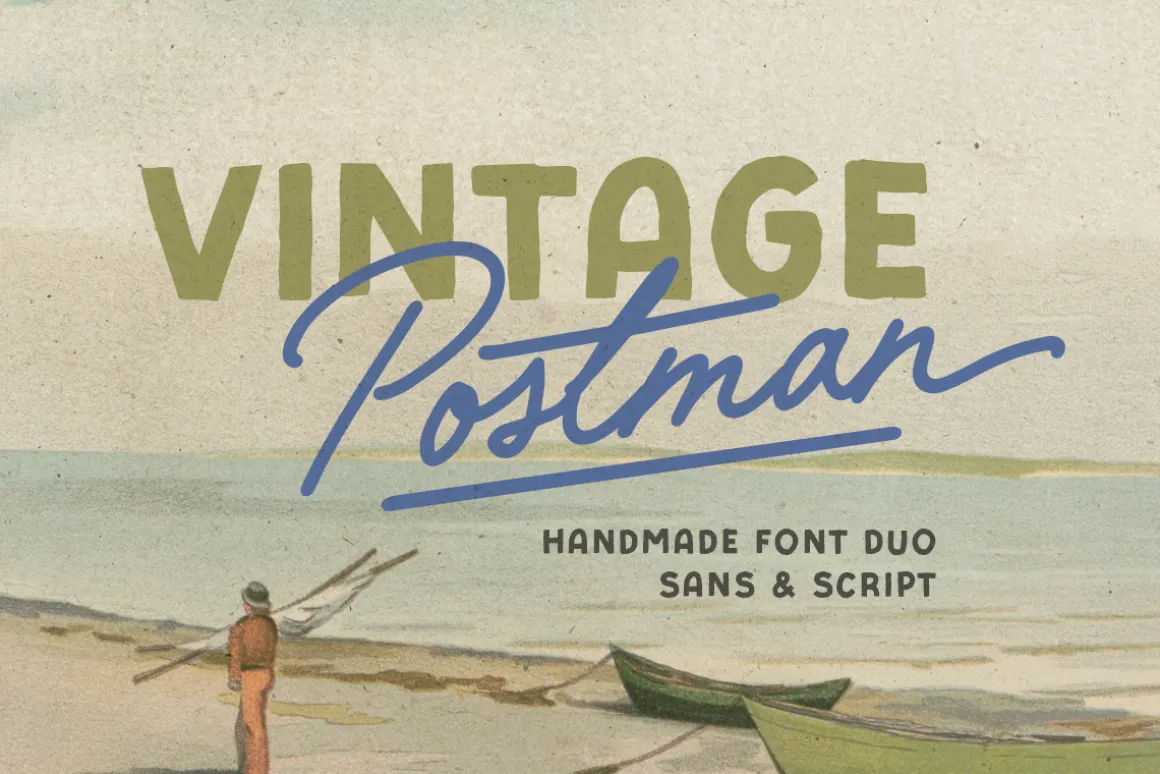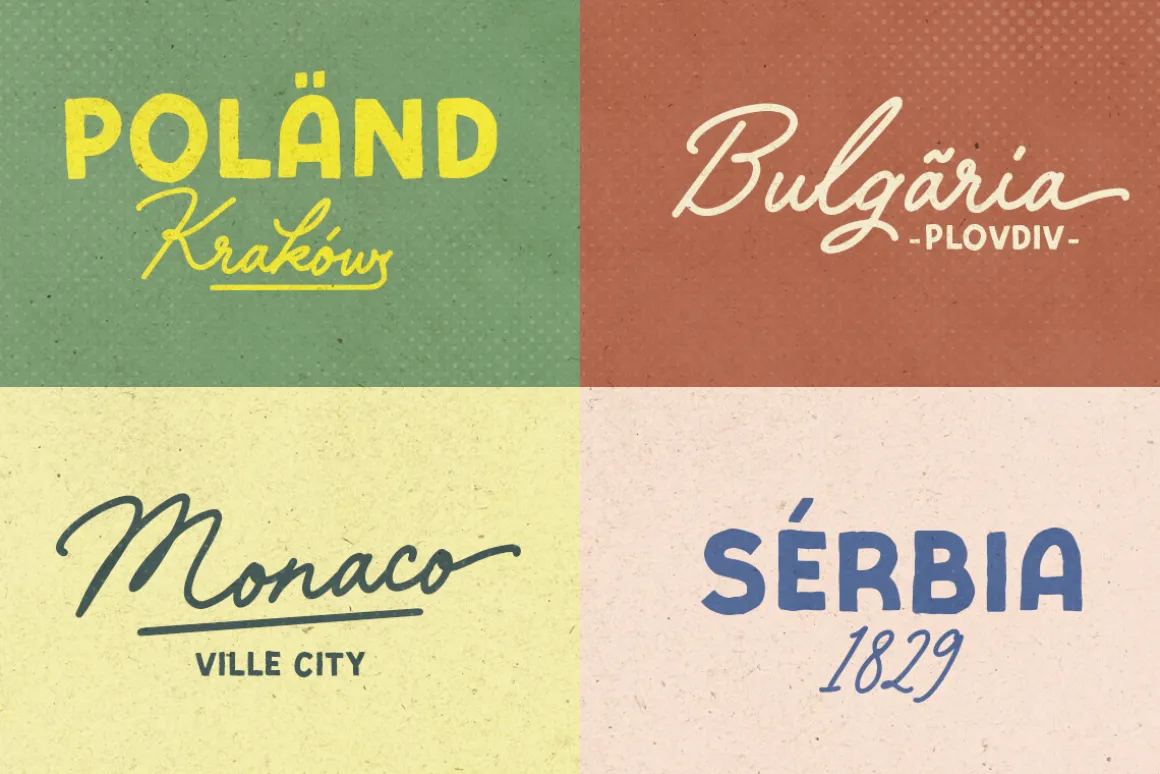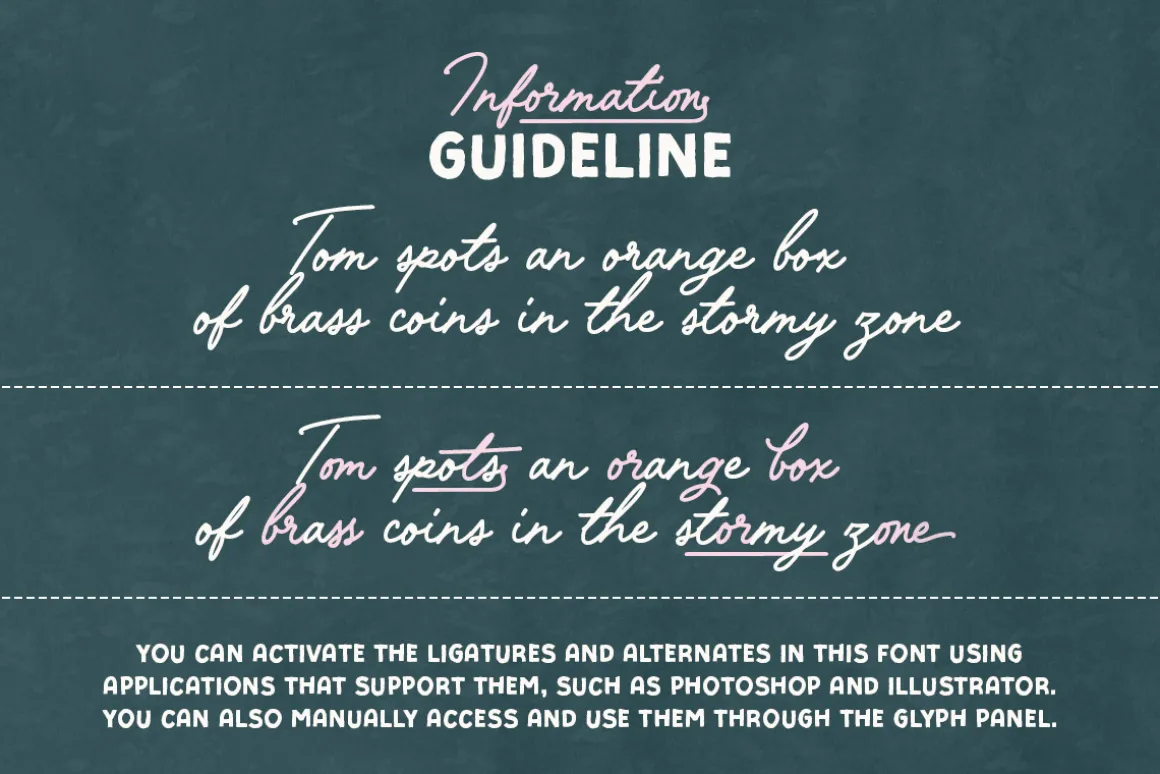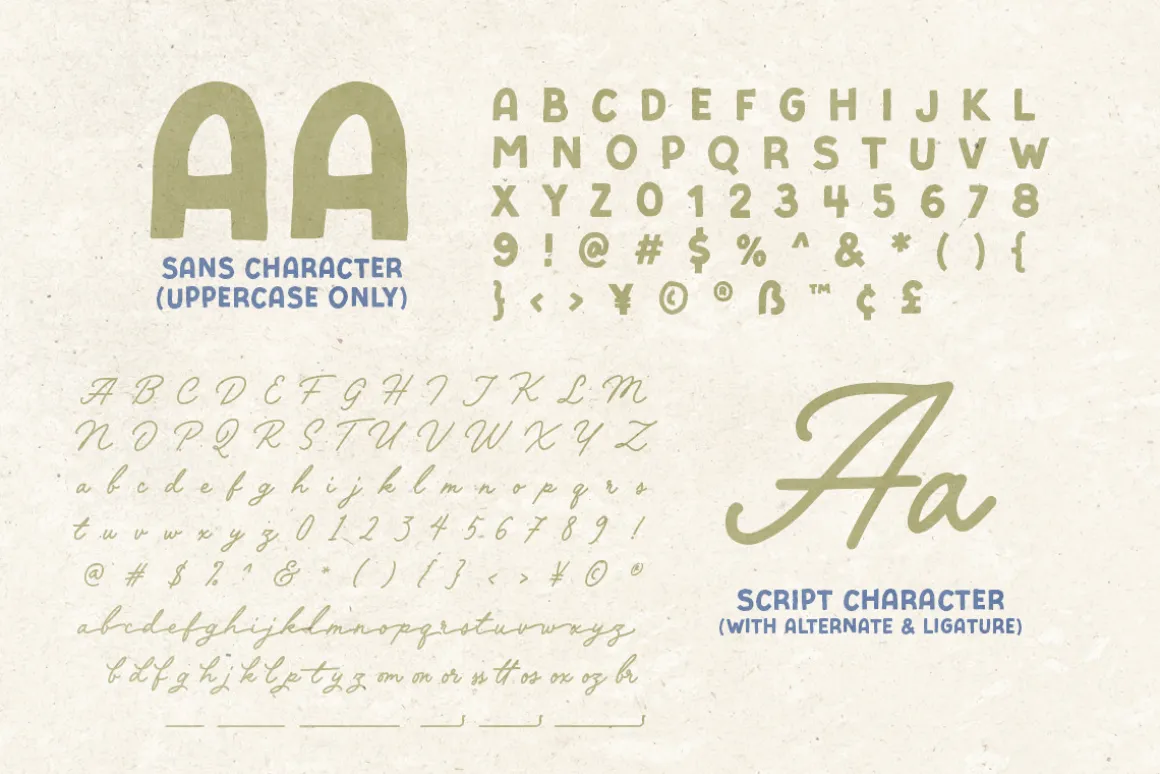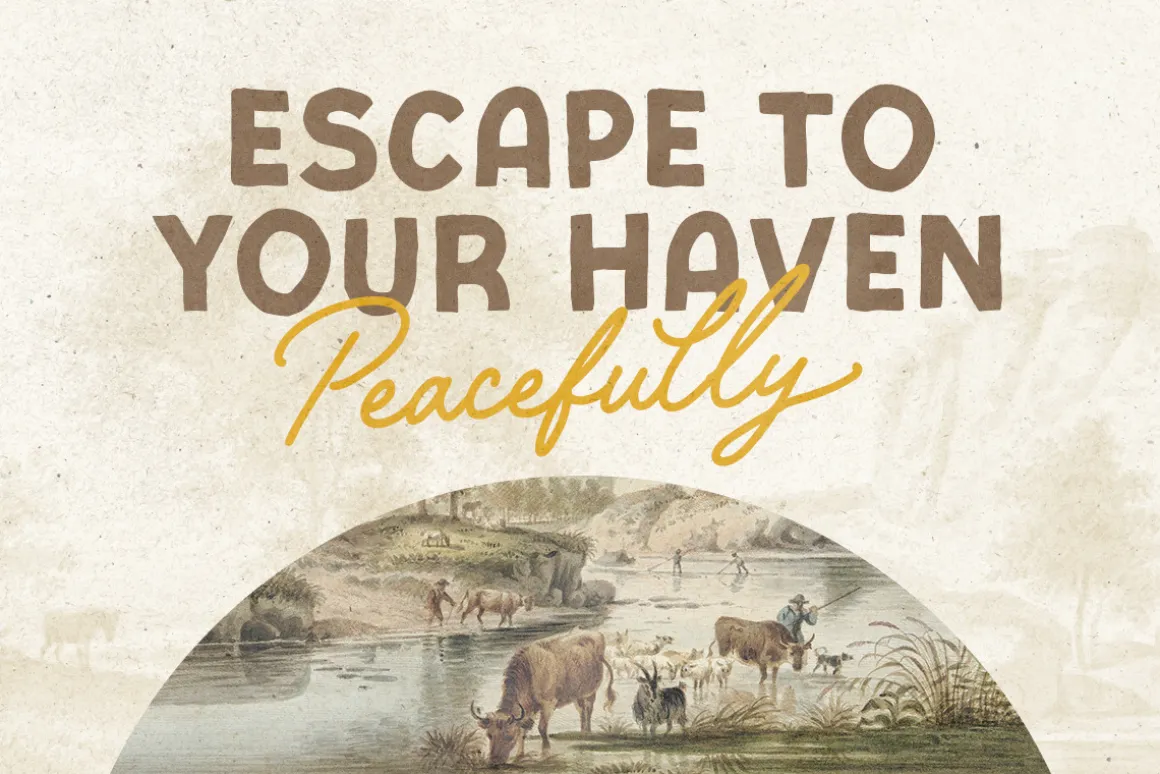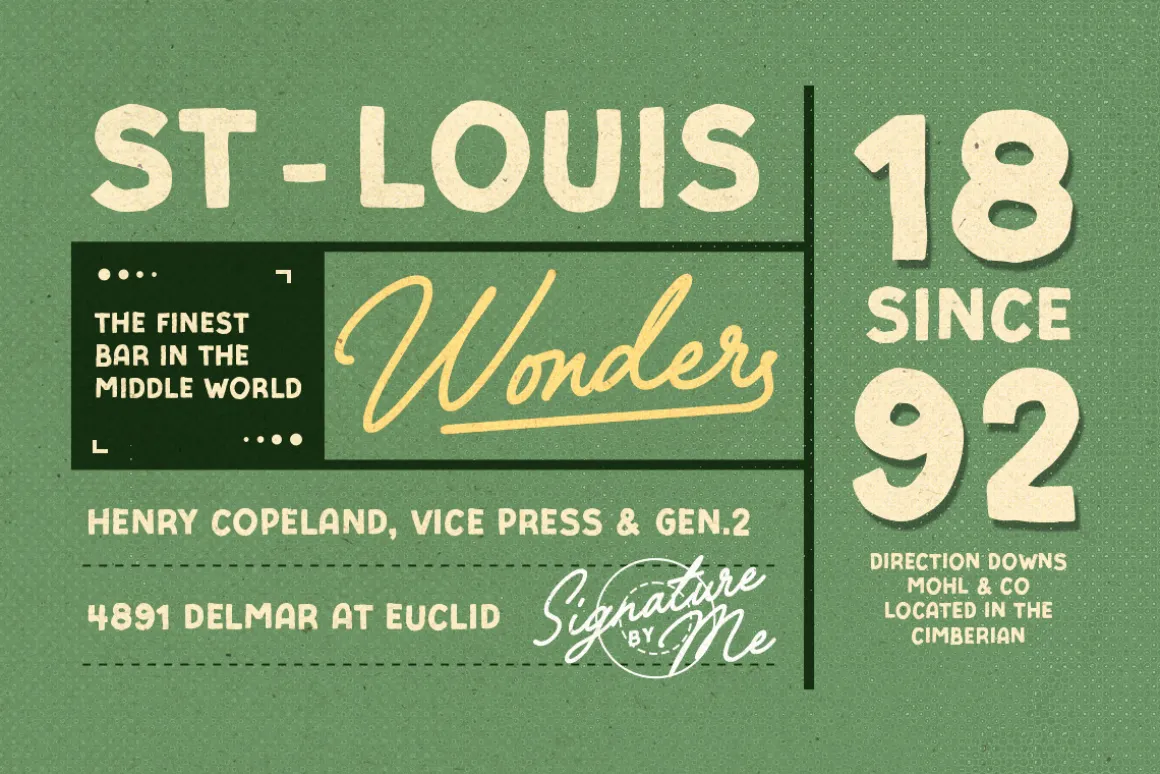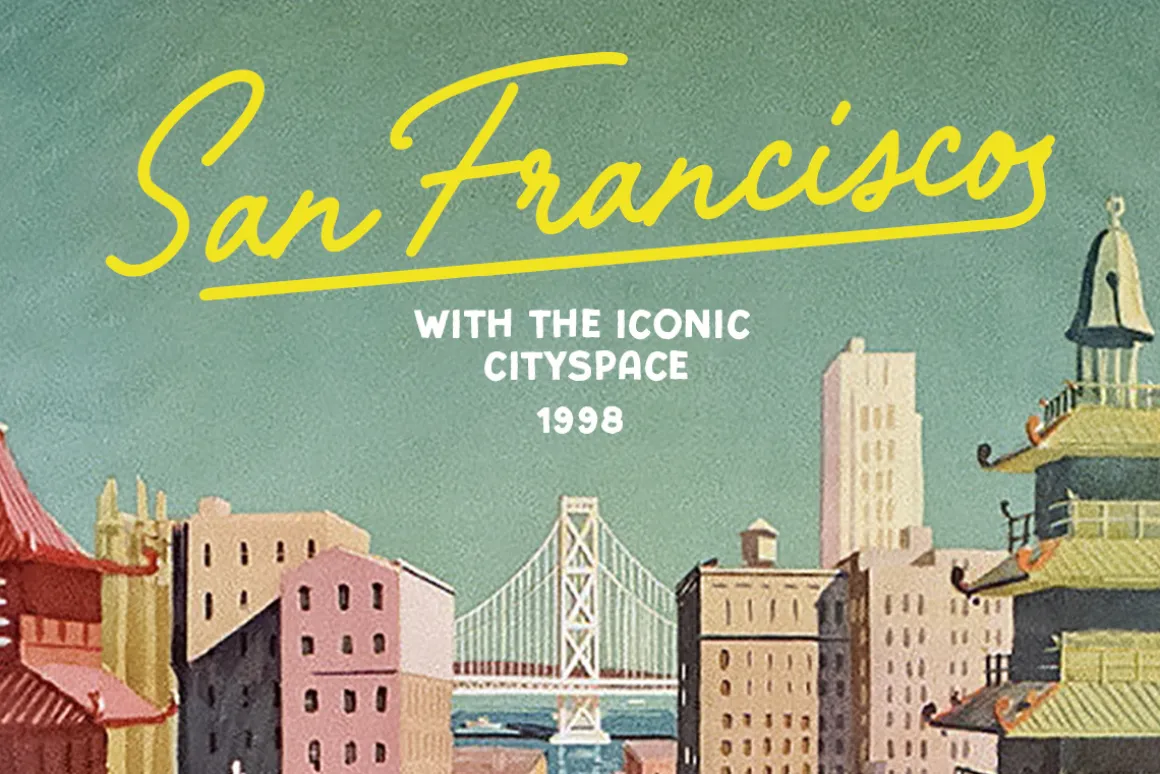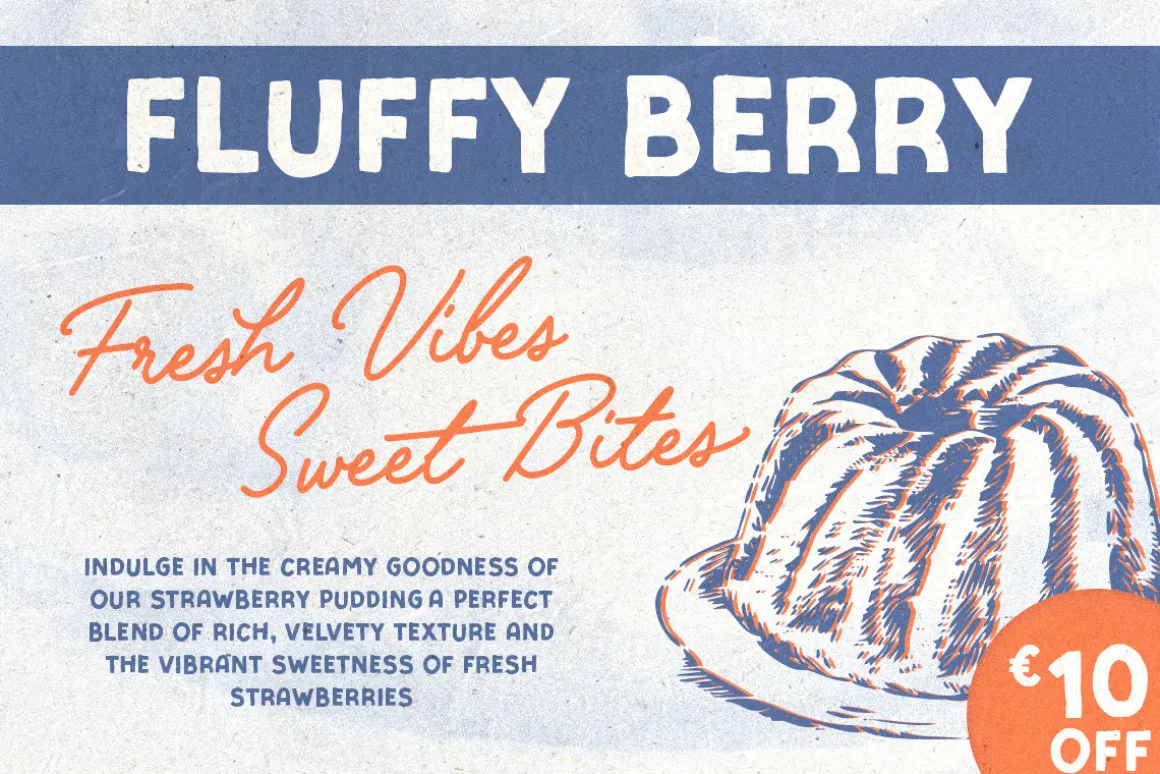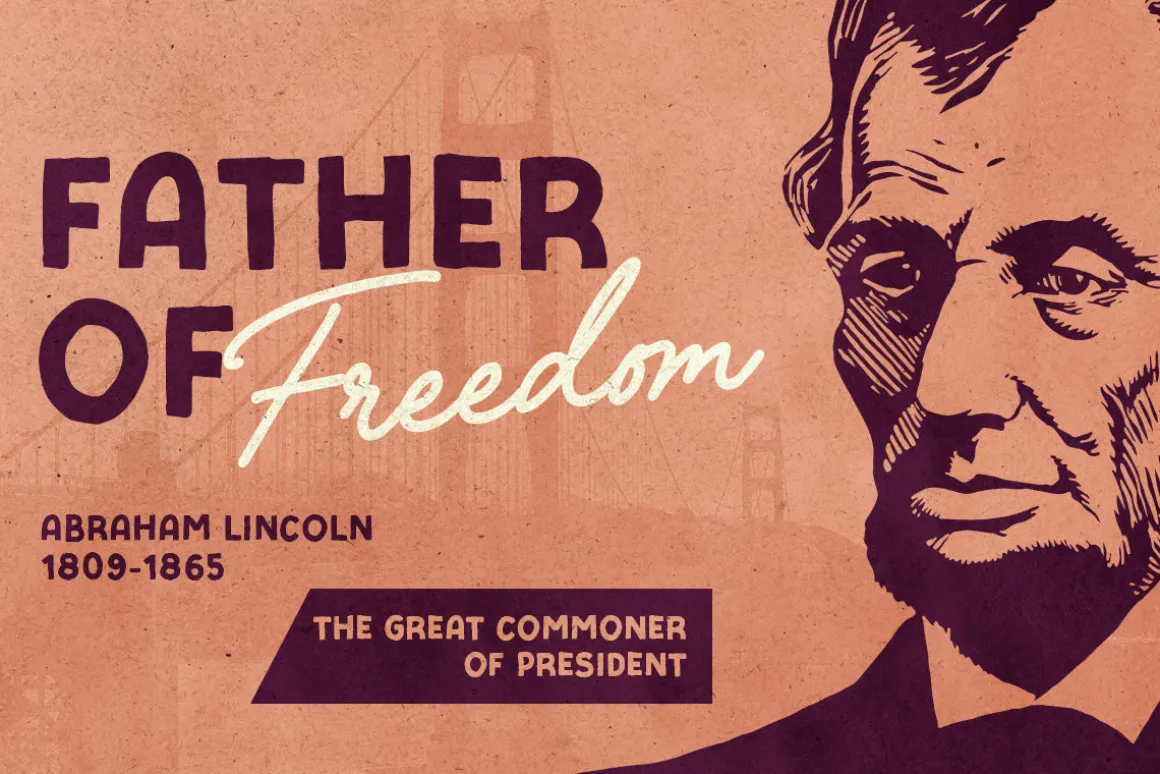
Vintage Postman is a handmade font duo that contains bold sans and monoline script. You can use this font for any purposes especially for design that needs retro and old vibes such as poster, logotype, quote, and branding. With alternates, ligatures, and lines from the script font that will make your project looks more appealing. This font duo also support multi language!
You can access the underline and end line from ligature of opentype features in Photoshop/Illustrator. Just active the ligatures and type underscore + number (1-3) in the middle of the text for underline, example : Post_2man. Type equal + number (1-3) in the end of the text for end line, example : Postman=2.